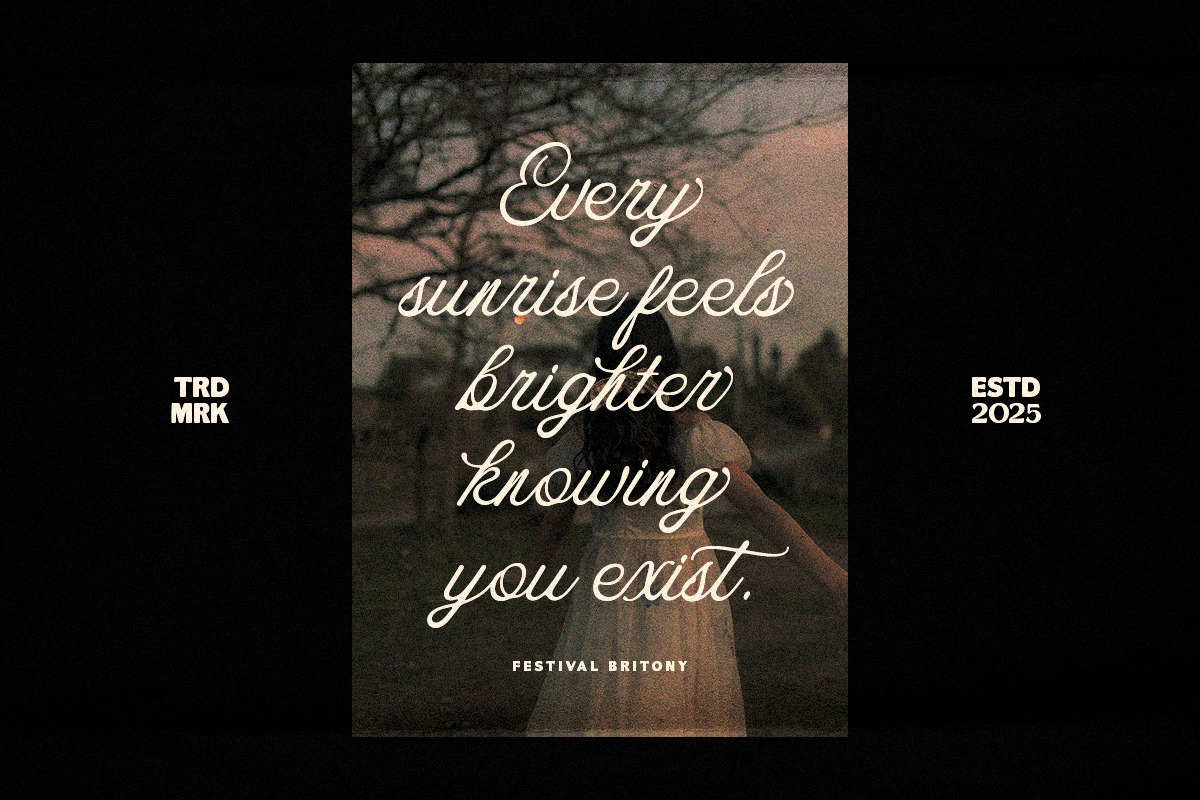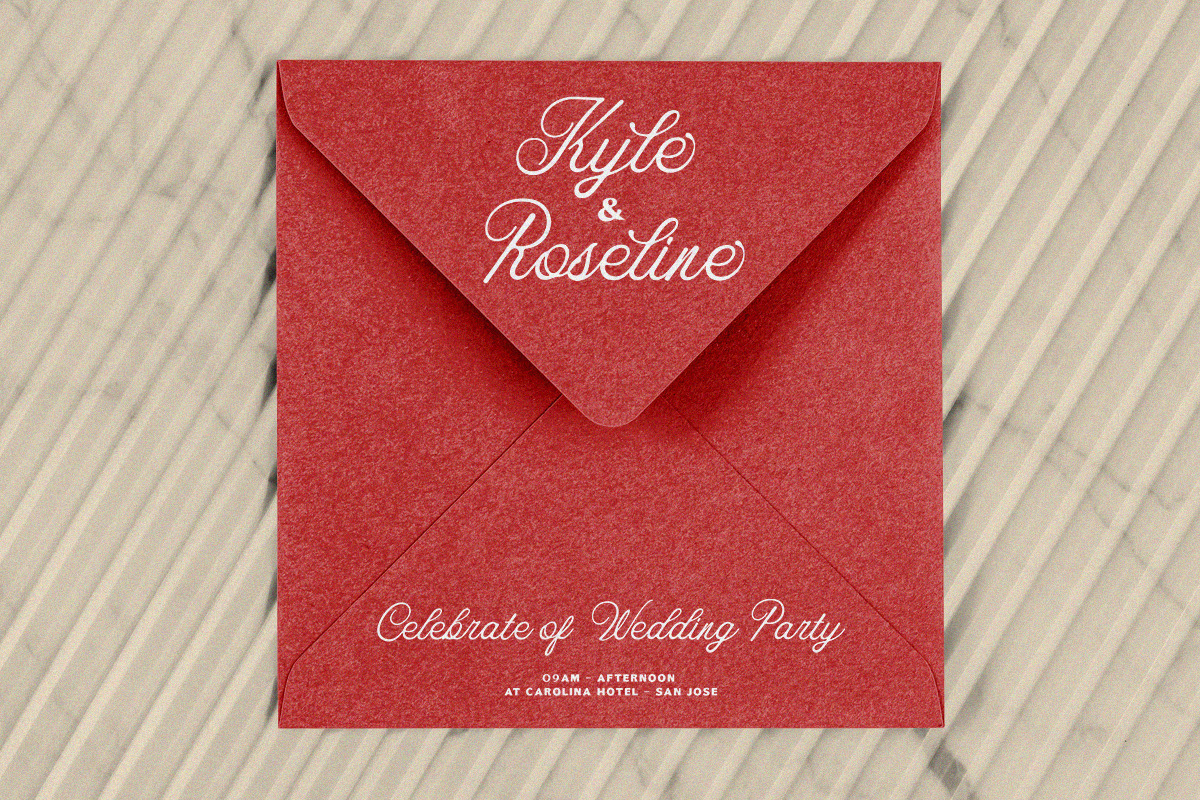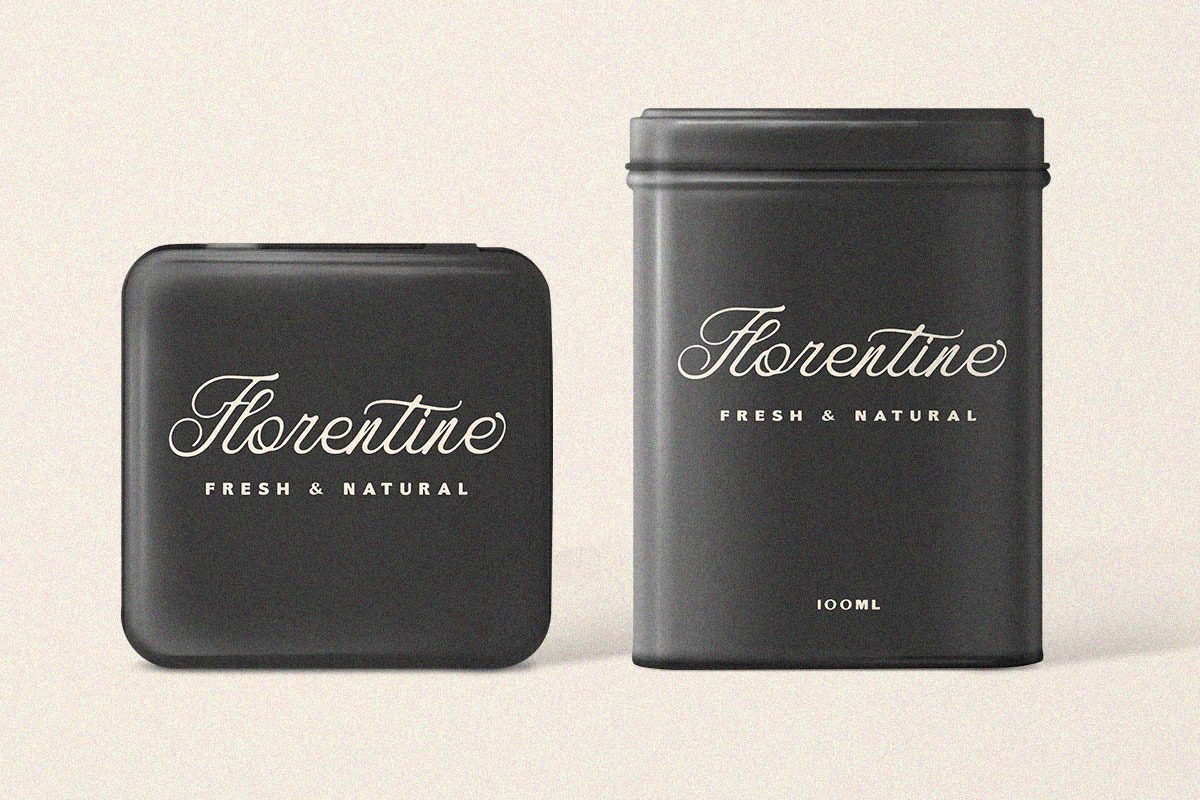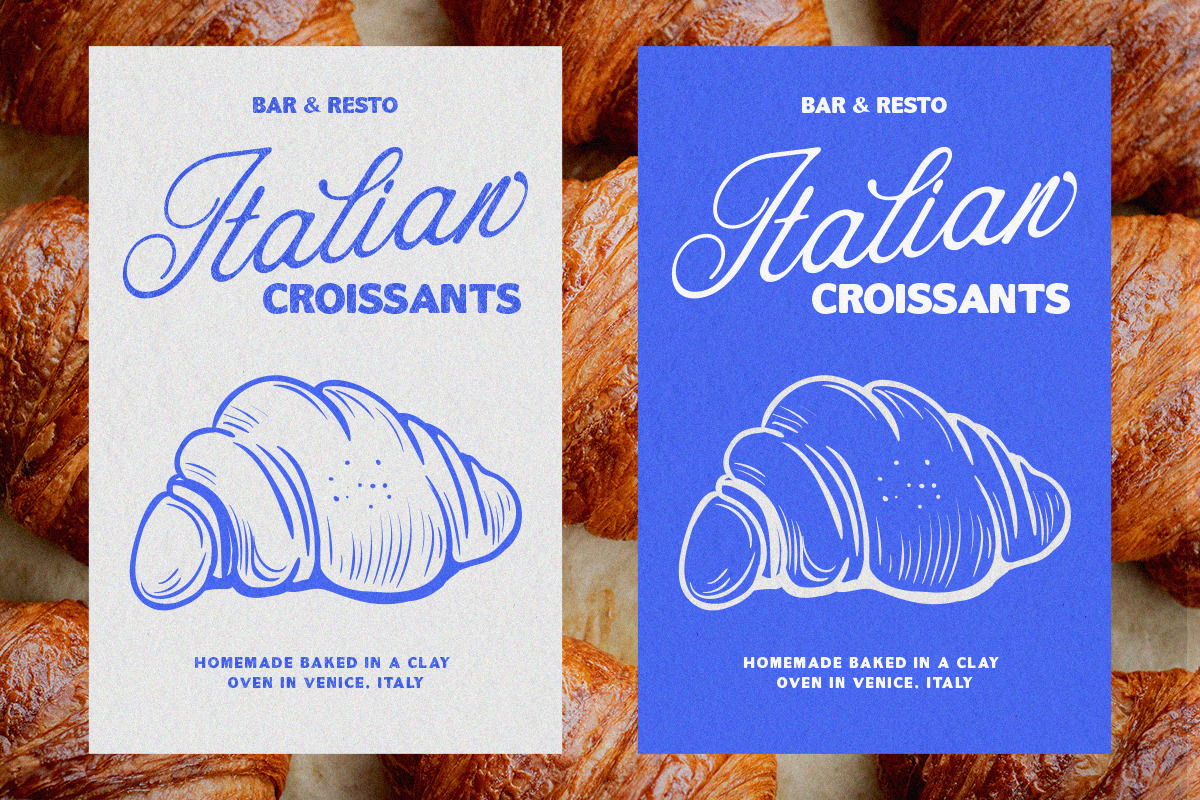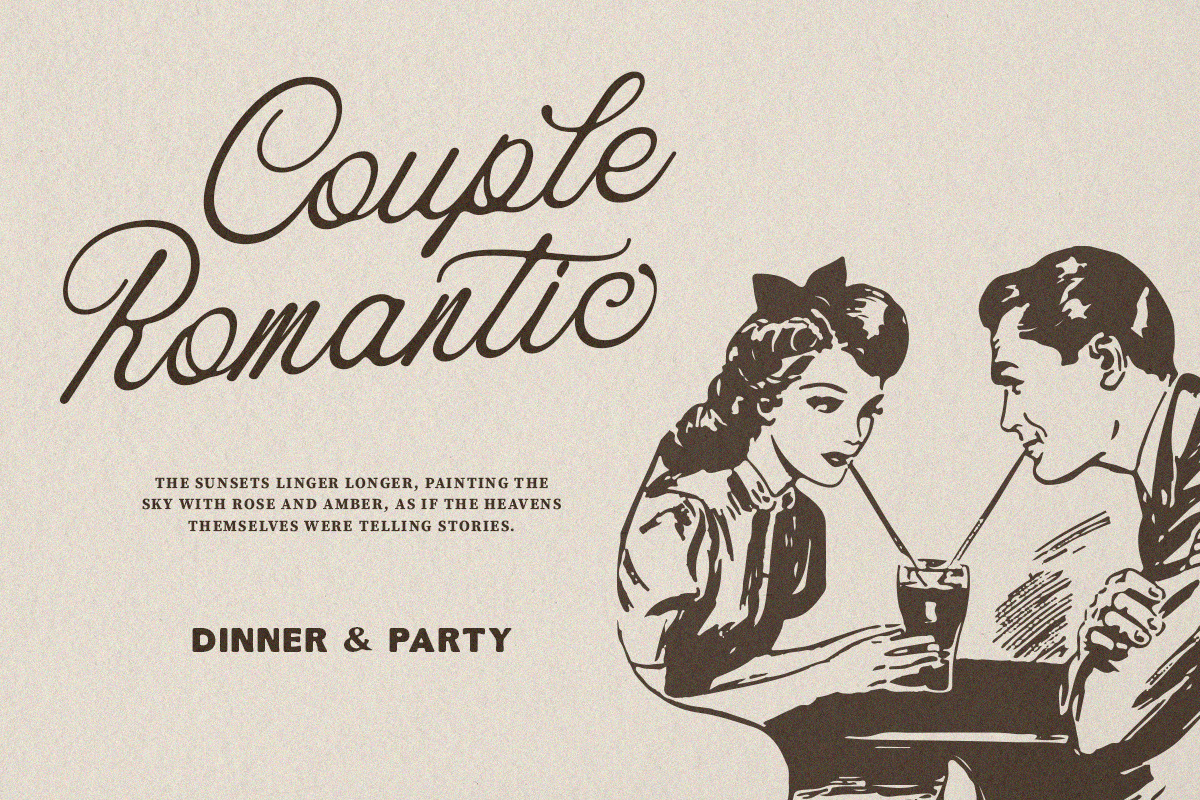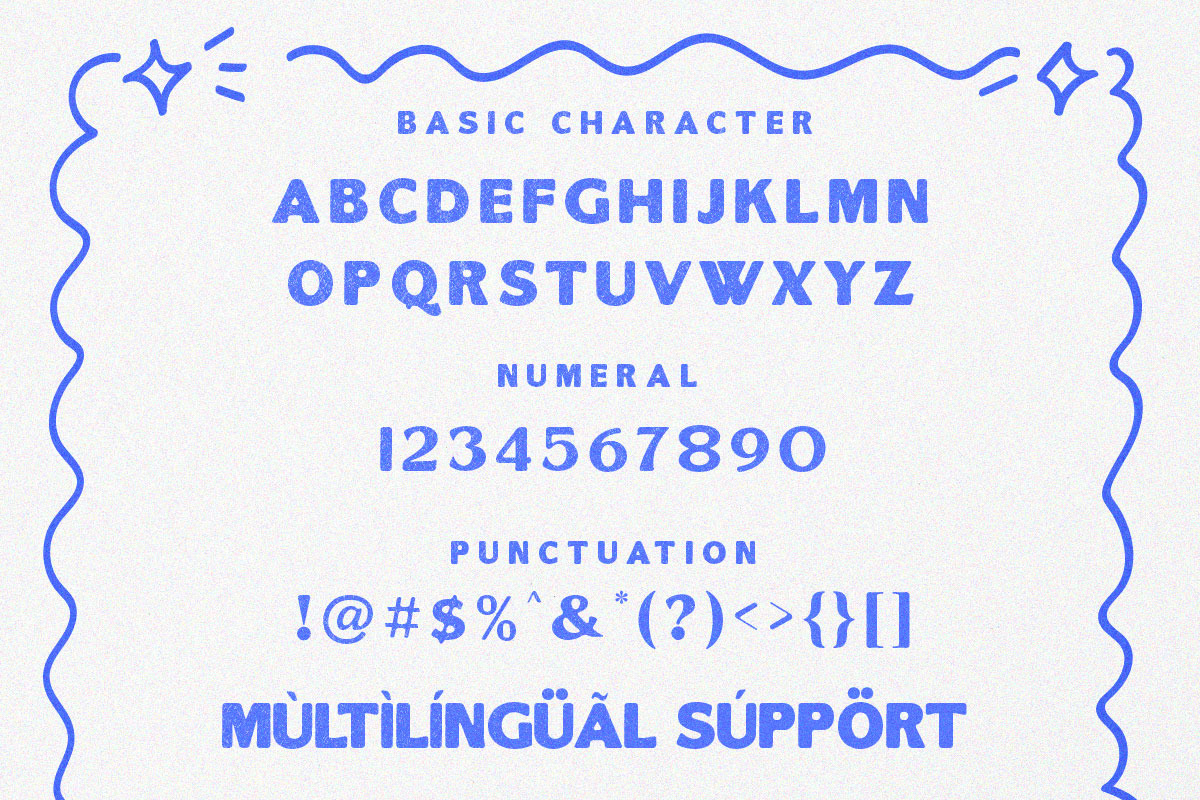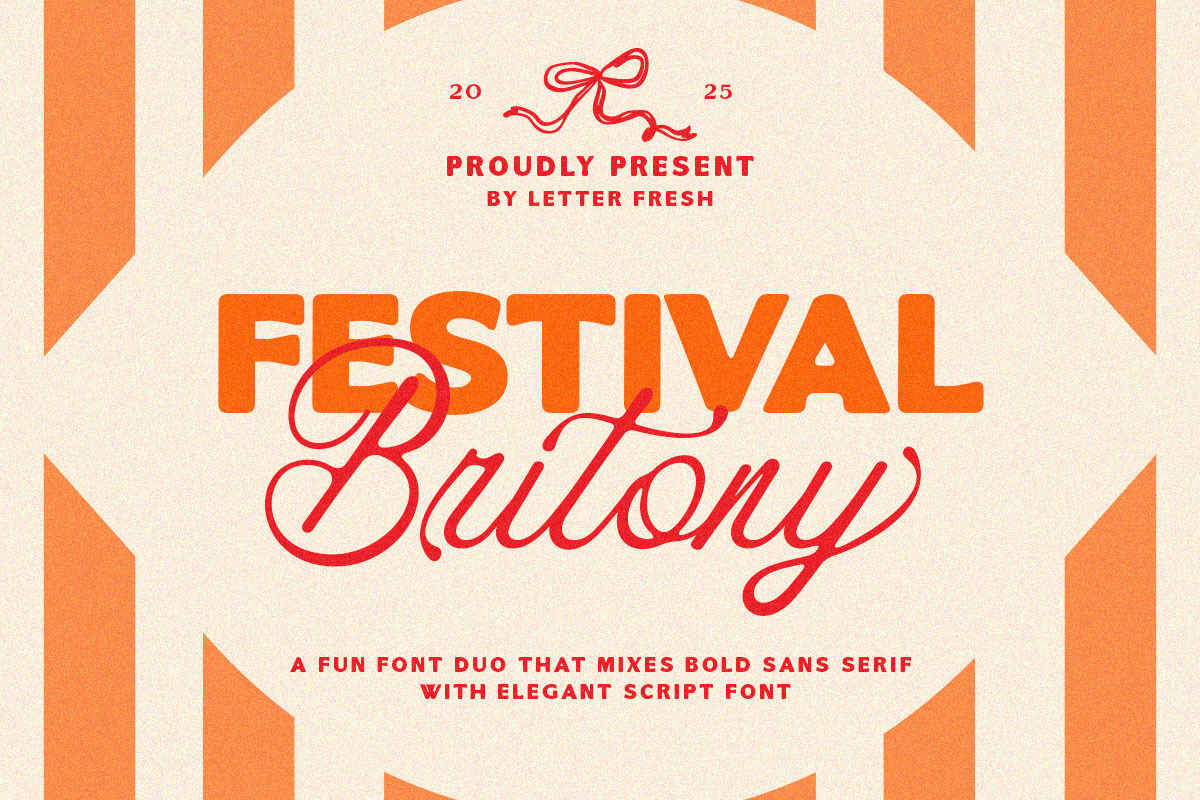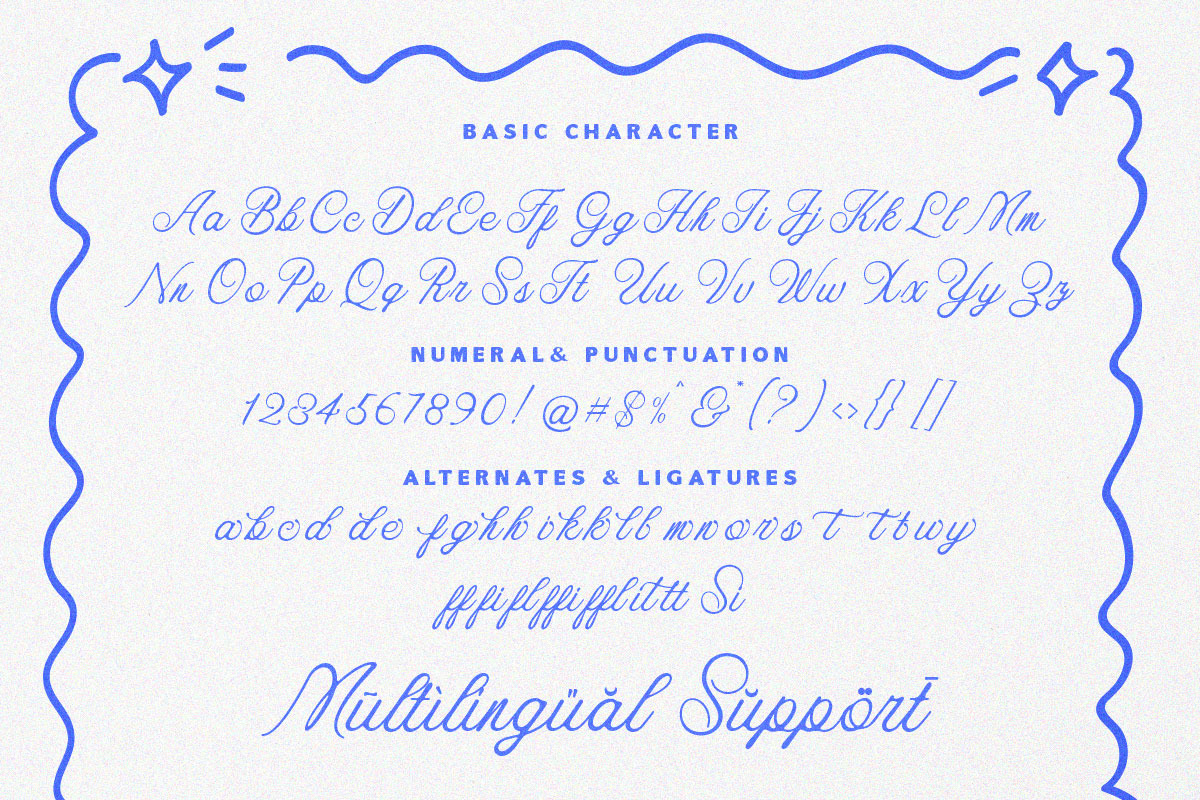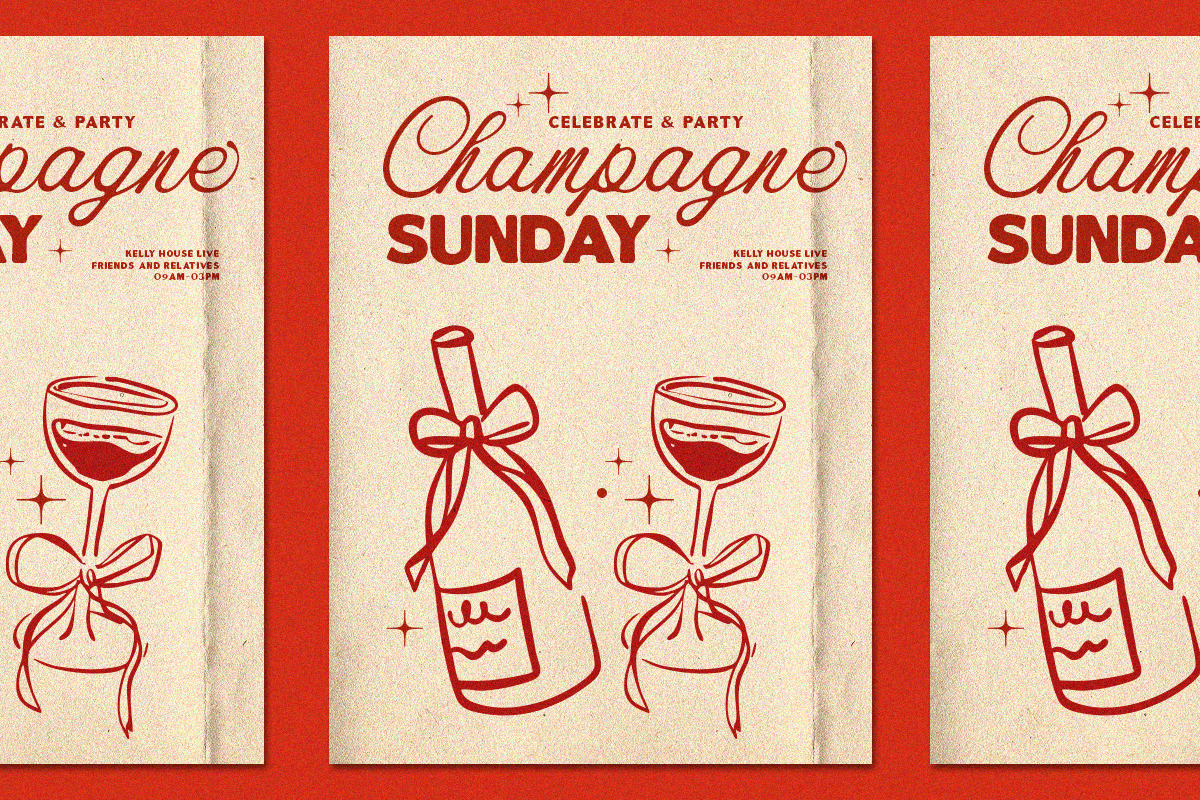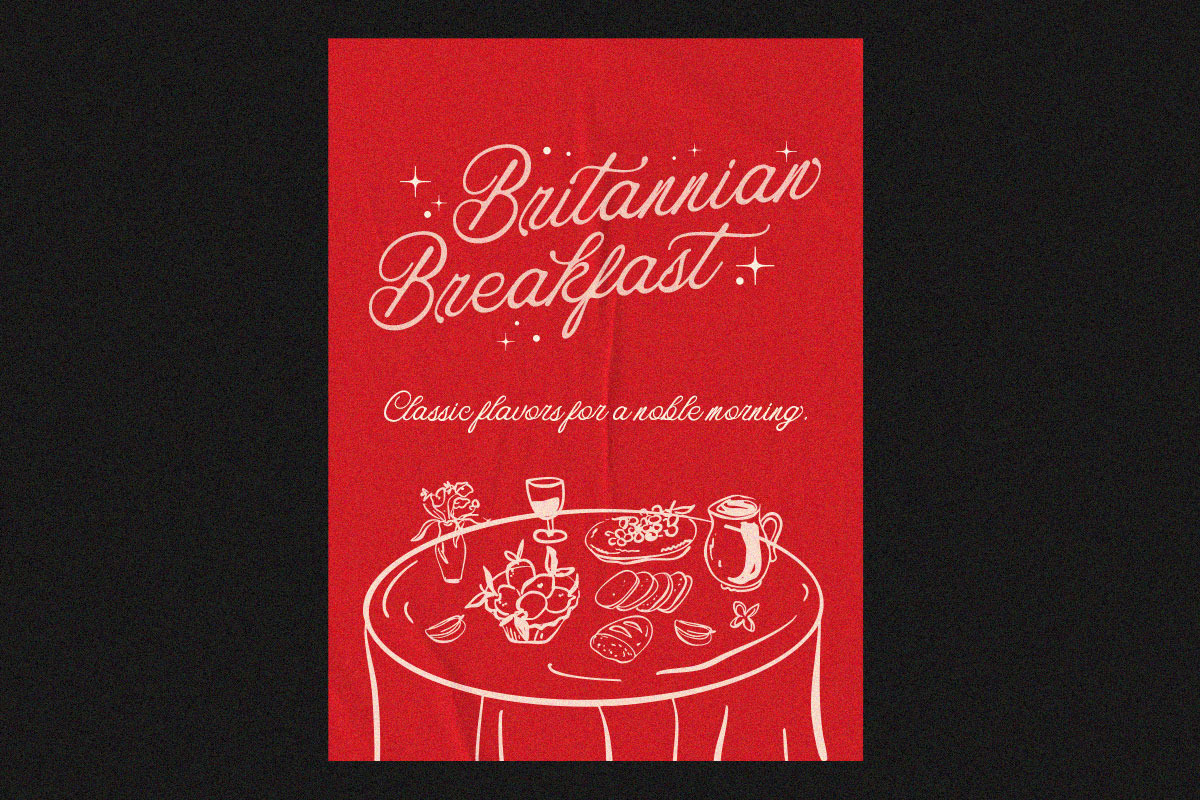
Festival Britony Font Duo
Festival Britony is a dynamic duo font that combines script and sans-serif styles, perfect for adding a vintage yet modern touch to your designs. With its smooth curves, retro aesthetic, and strong look, this font is ideal for logos, branding, packaging, apparel, signage, and social media graphics. The script font exudes energy and personality, while the sans-serif font ensures clarity and flexibility.